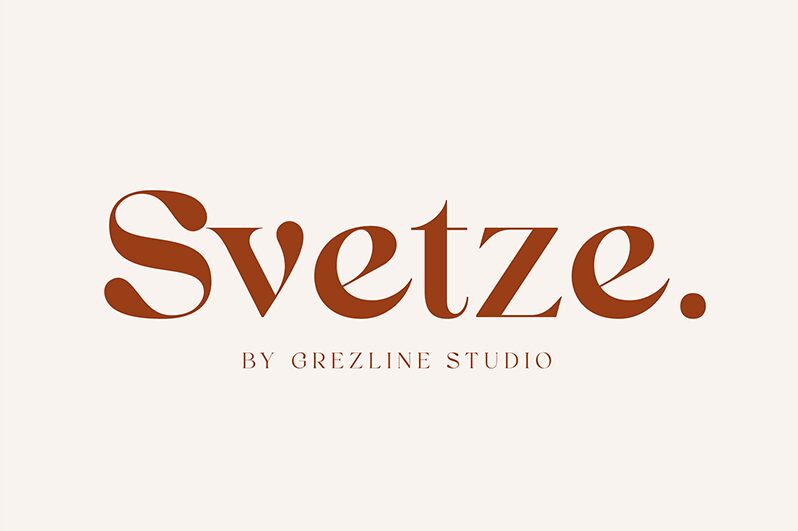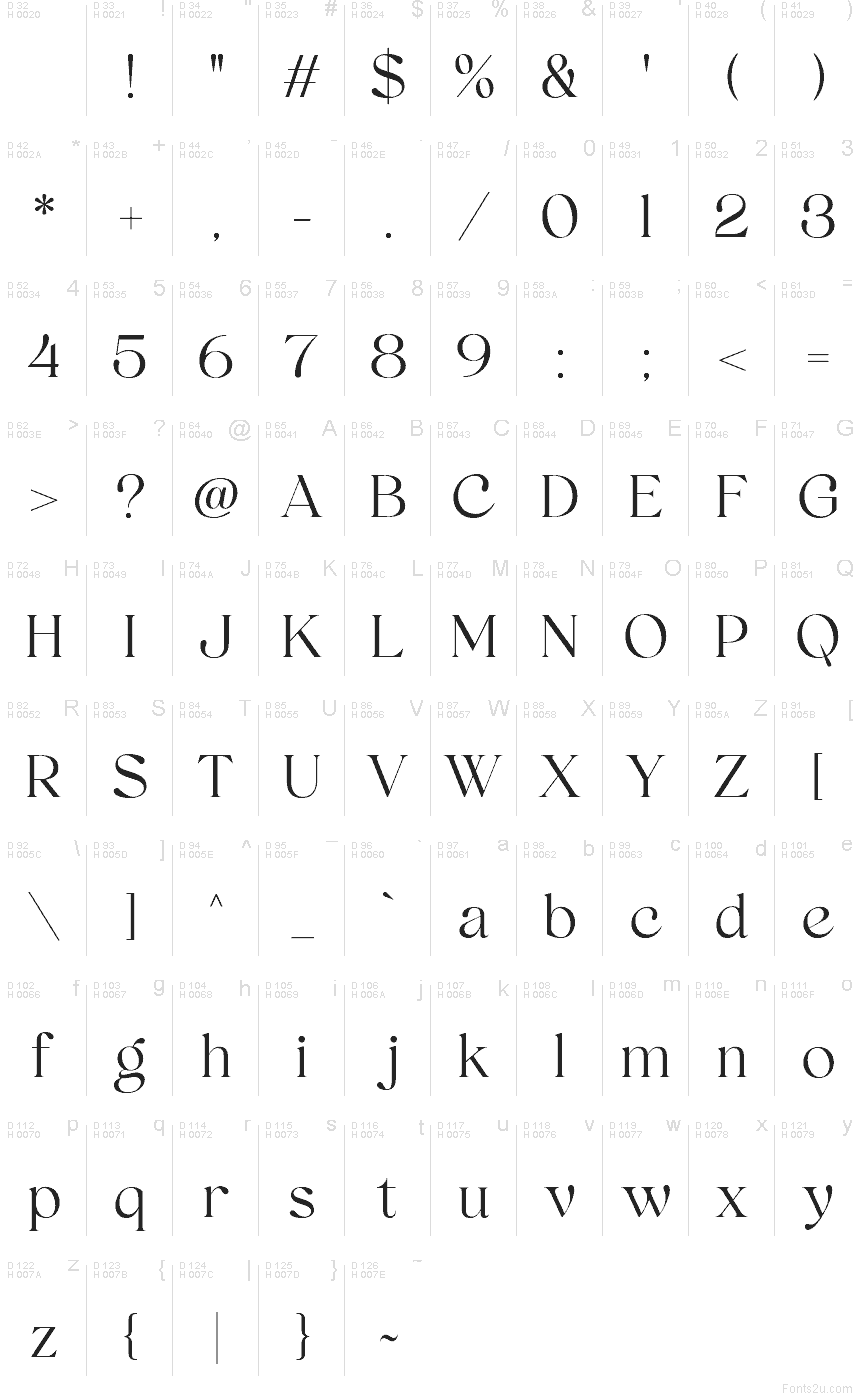
Svetze by Akhmad Reza Fauzi is a free high-contrast serif display font with the elegance of fashion editorial lettering. Tall, poised forms carry generous curves and hairline-fine serifs.
For luxury packaging, pronounced stroke changes and airy proportions give perfume, jewelry, and cosmetics names the rarefied look of a contemporary fashion house. In a different setting, the broad verticals and sweeping round letters bring theatrical scale to magazine mastheads, exhibition programs, and cultural event posters. Its clearest territory is fashion, beauty, and the arts, especially in projects drawing on the crisp glamour and dramatic scale associated with contemporary luxury fashion publishing.